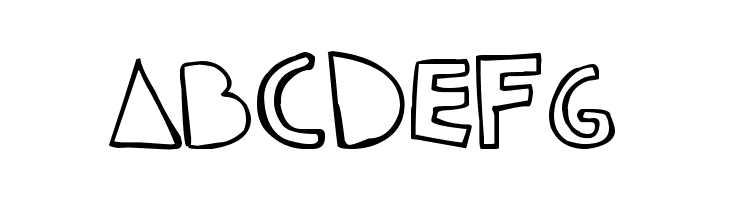
Birthdays and Parties Regular Font
- Font: Birthdays and Parties Regular
( Fonts by Rodrigo German - RASDESIGN )
A playful, hand-drawn font with a cartoonish and quirky style.